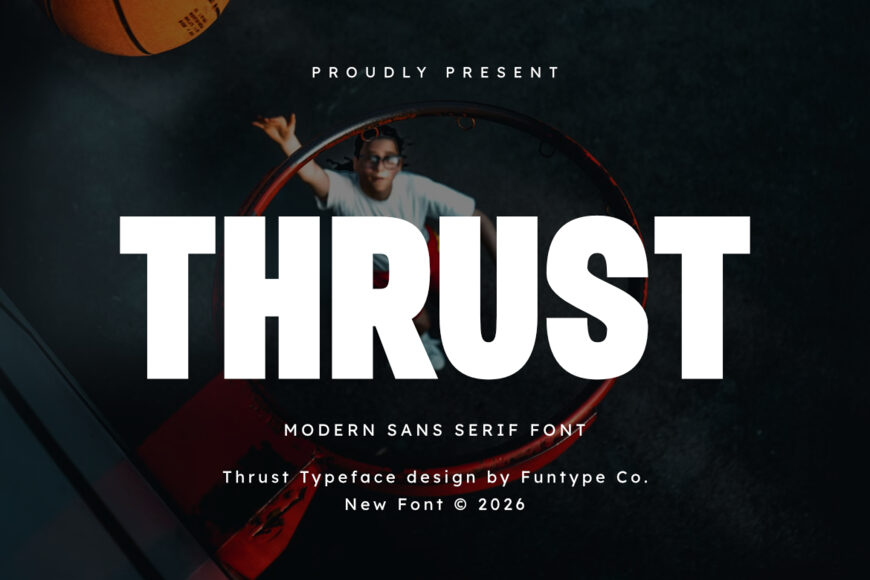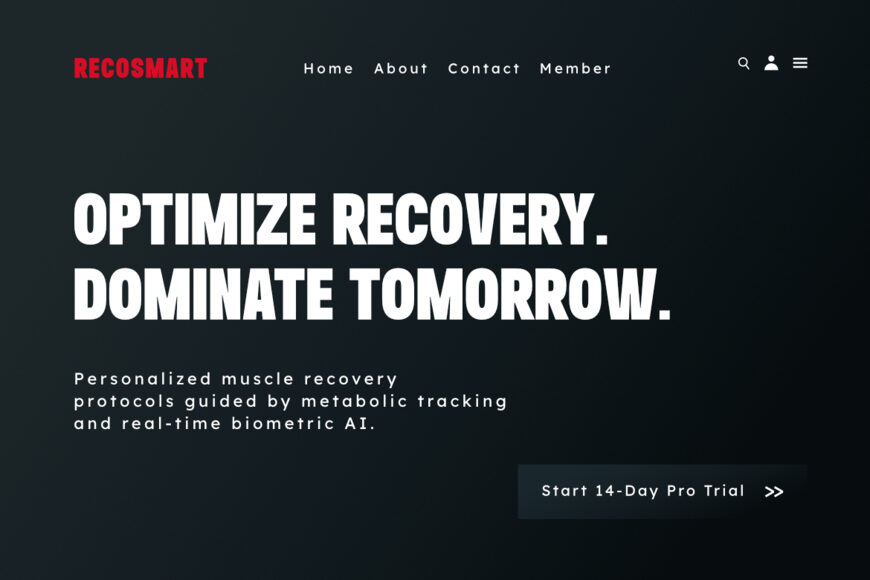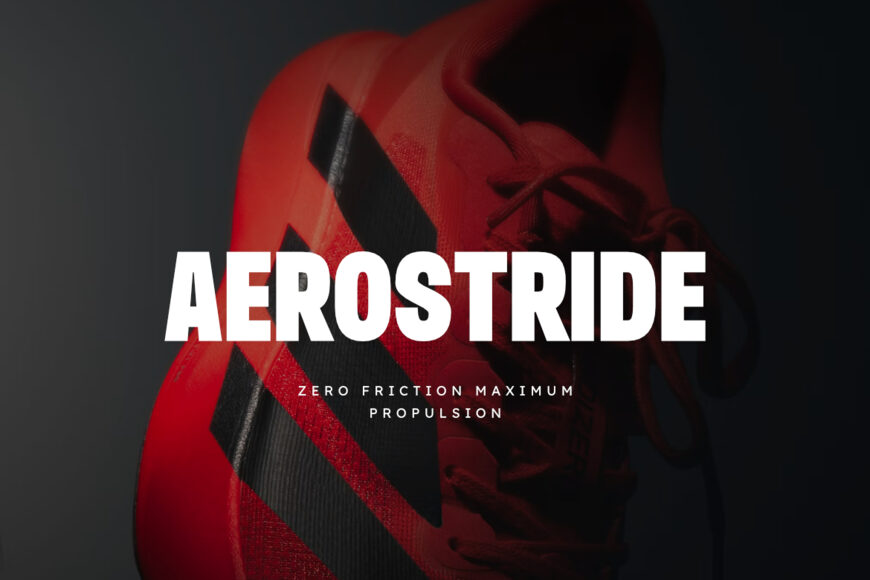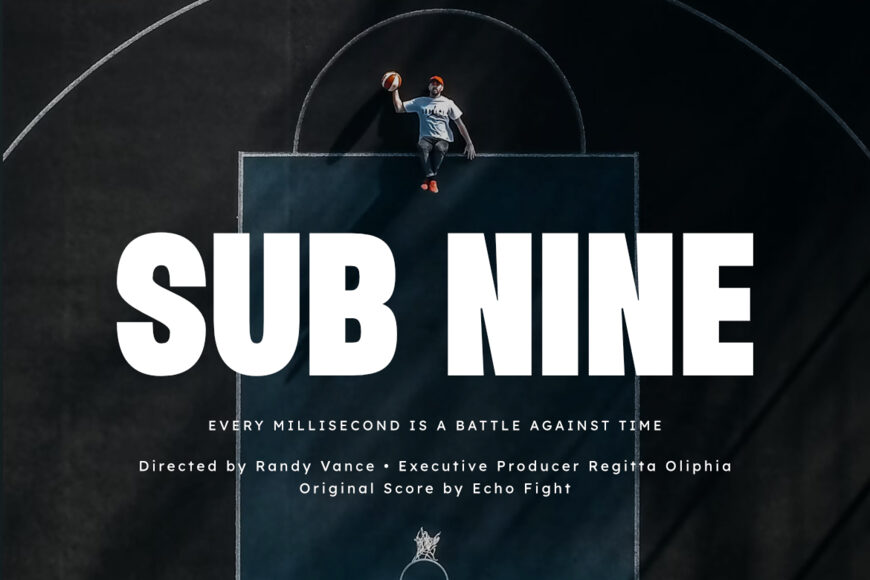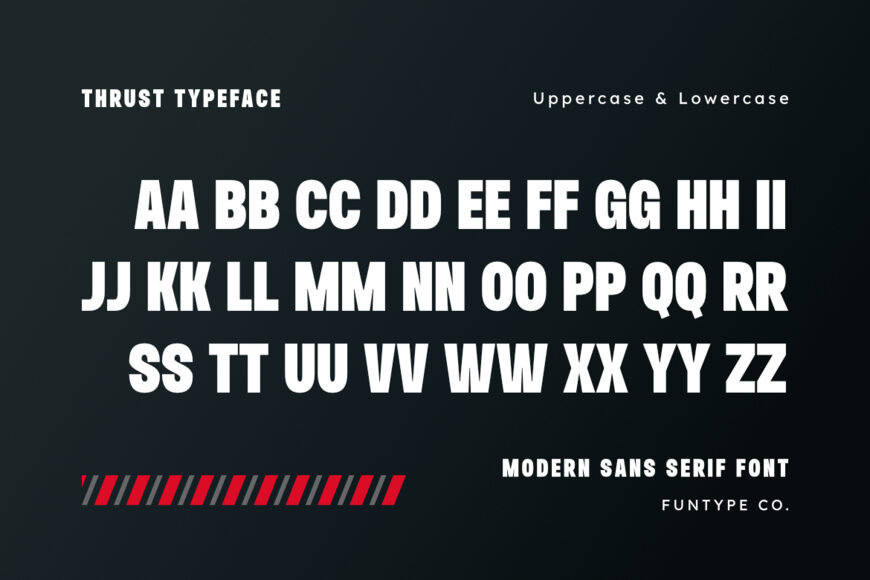
Thrust is a bold, heavy, and beautifully stylized modern sans serif font tailored for precise, high-impact branding and commercial craft design.
Showcasing a compact geometric block structure, heavy weights, and clean linear silhouettes, this typeface is exceptionally qualified for commanding headlines, high-end urban streetwear clothing lines, athletic sports jerseys, custom vinyl decals, activewear branding, and bold promotional posters.